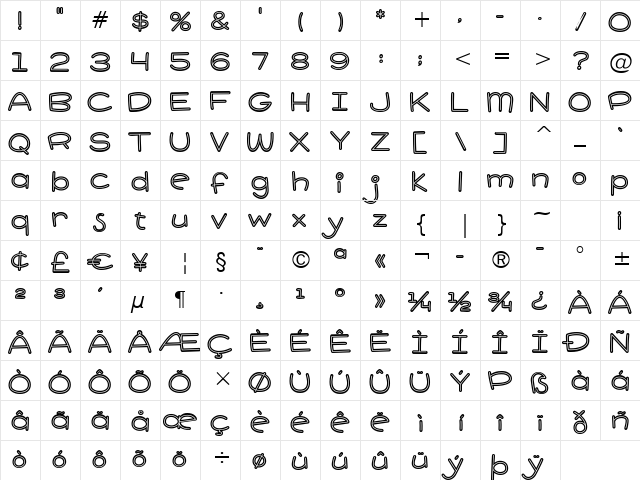
Pie Contest BTN Inline Regular
Design Context for Pie Contest BTN Inline Typeface
Pie Contest BTN Inline is built around its visual character rather than neutral utility — its distinctive forms are designed to make an impression at display sizes.
Font Pairing: Pair with a clean neutral sans-serif for body copy to let Pie Contest BTN Inline's character lead without overwhelming the composition.
Pro Tip: Use Pie Contest BTN Inline exclusively at display sizes — it was designed to be seen, not read at length. Let a neutral companion handle body copy.